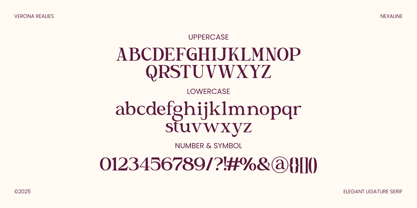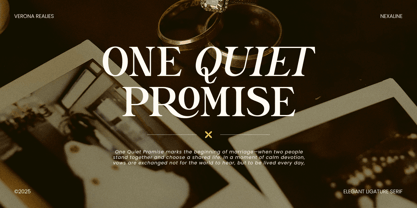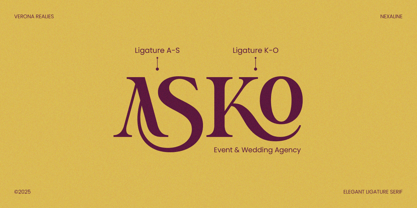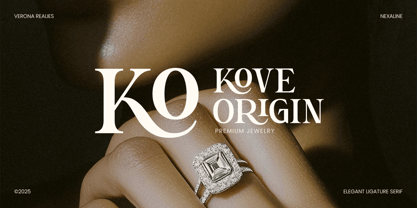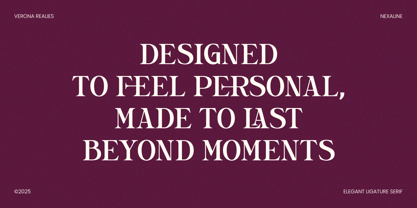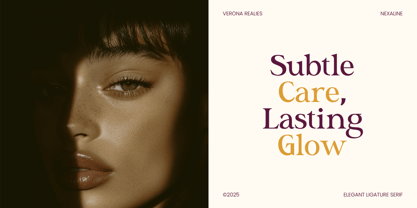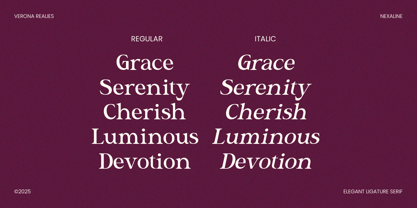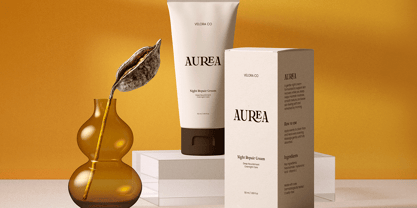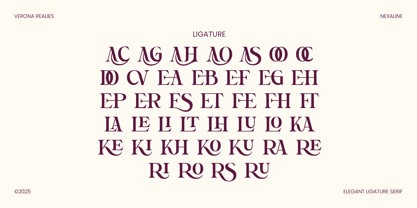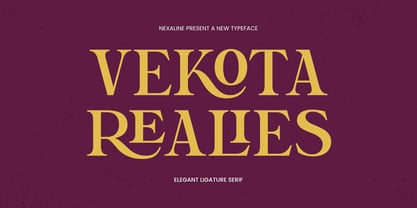
Vekota Realies
by Nexaline Type
The Vekota Realies Font Family was designed by Zaidan Akbar and published by Nexaline Type. Vekota Realies contains 2 styles and family package options. More about this family
Vekota Realies — Elegant Ligature Serif is a refined display serif typeface crafted for sophisticated visual identity and expressive typography. Featuring graceful ligatures, elegant serif details, and balanced letter proportions, Vekota Realies provides a refined typographic voice that emphasizes beauty, character, and visual harmony. This typeface is designed to highlight elegance without sacrificing clarity, combining decorative ligature forms with a classic serif foundation, making it ideal for branding projects that require a distinctive and luxurious typographic presence. Thoughtful proportions and expressive detailing ensure that Vekota Realies remains both elegant and visually distinctive. Whether utilized for luxury branding, editorial headlines, fashion graphics, or premium packaging, this typeface infuses sophistication and timeless character into contemporary design projects. Features: - Uppercase & Lowercase - Numbers & Punctuation - Elegant Ligature Serif Construction
Designers: Zaidan Akbar
Foundry: Nexaline Type